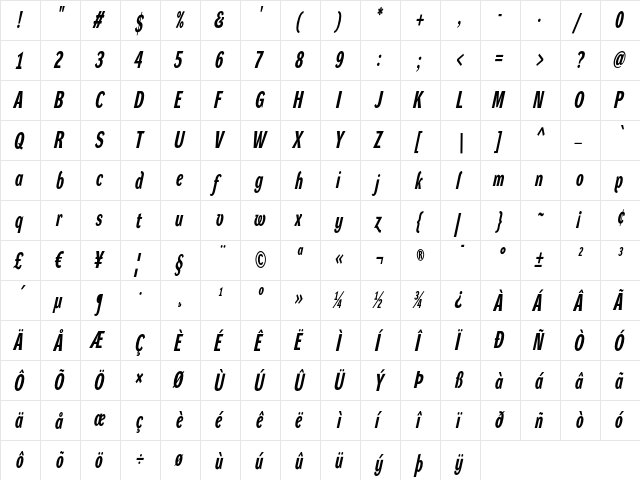
DynaGrotesk RXC Bold Italic
Design Context for DynaGrotesk RXC Typeface
DynaGrotesk RXC has the quiet confidence of well-executed sans-serif typography: versatile, unobtrusive, and dependable at any size. Its italic angle brings a sense of urgency and motion to the letterforms. Its bold stroke weight gives it real presence on the page.
Well-suited to navigation labels, product packaging, and anywhere legibility at scale is essential.
Font Pairing: Use DynaGrotesk RXC for headlines alongside a lighter-weight sans or serif for body copy to establish clear visual hierarchy.
Pro Tip: Use DynaGrotesk RXC for UI labels, navigation, and short-form body copy where clean legibility is the priority.